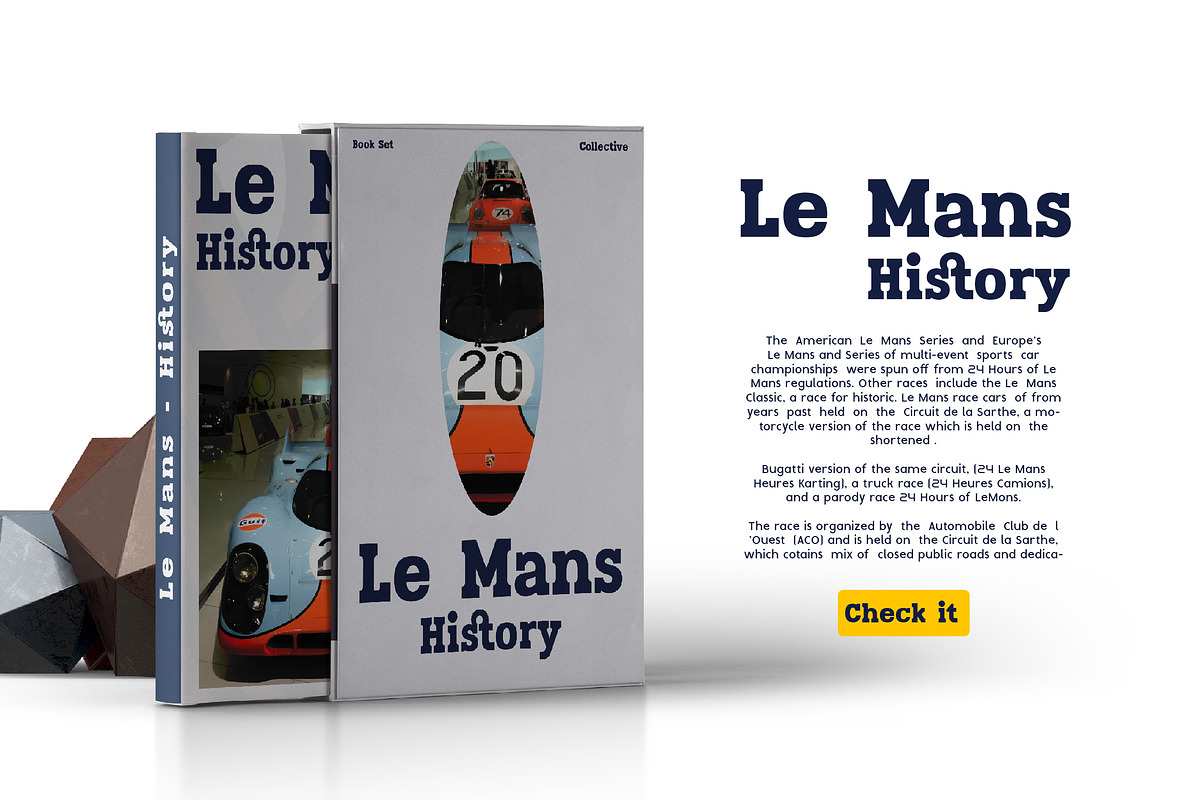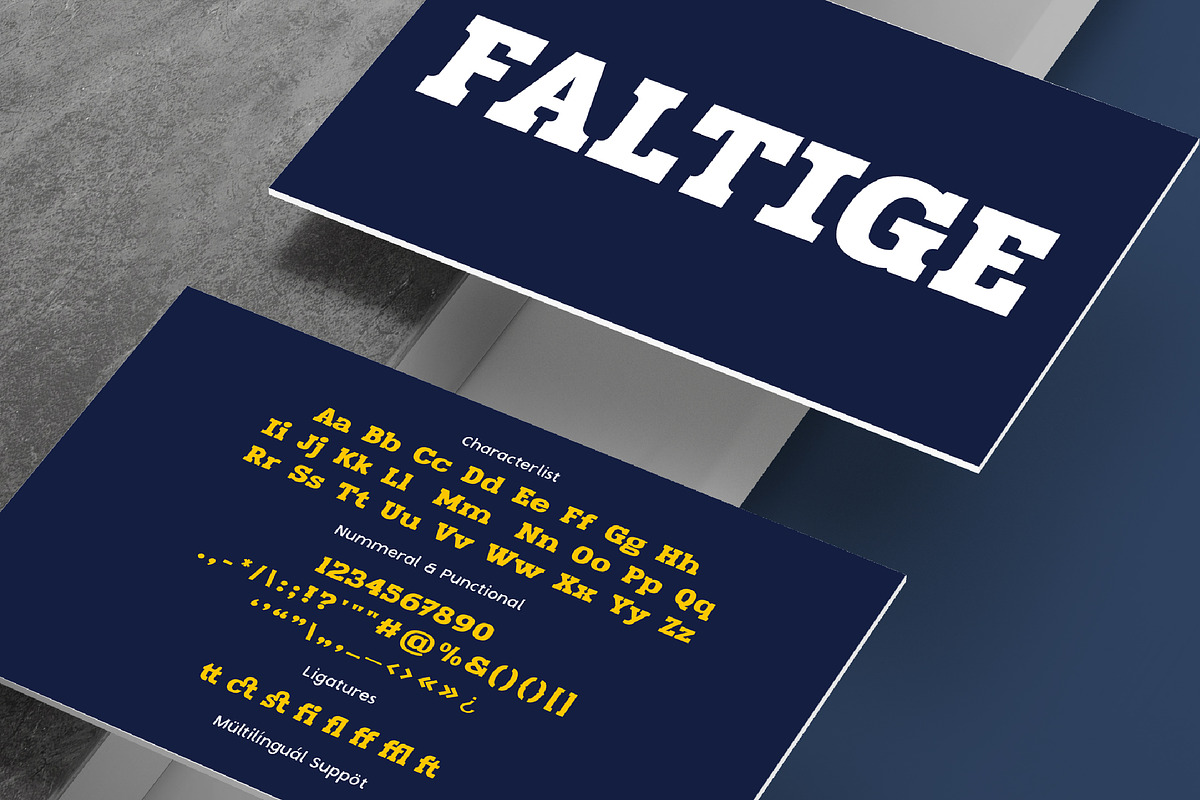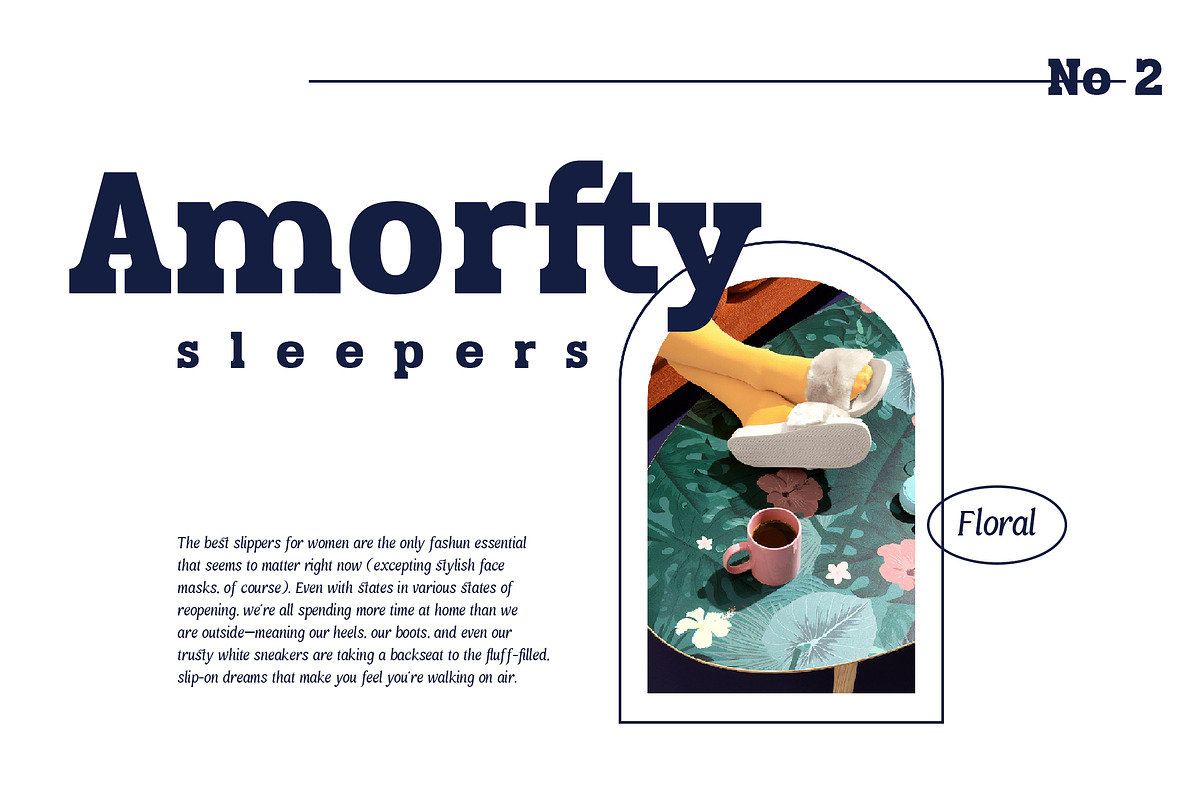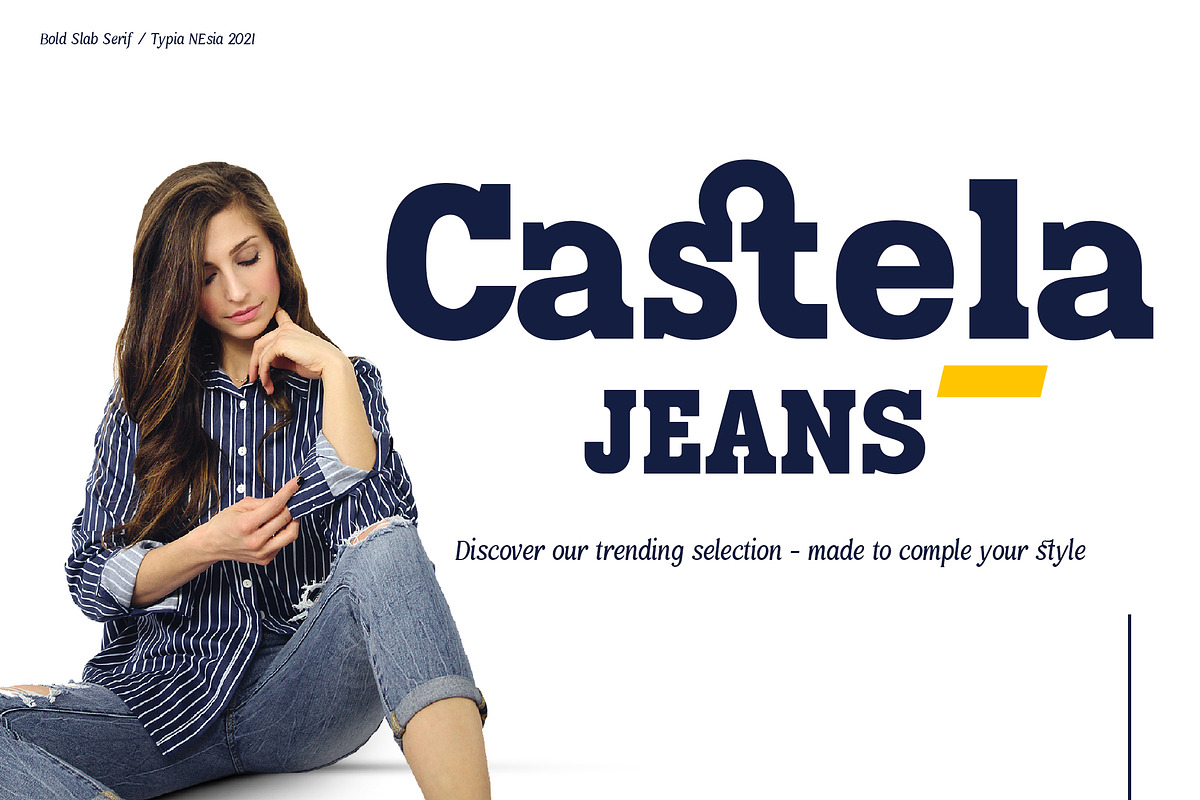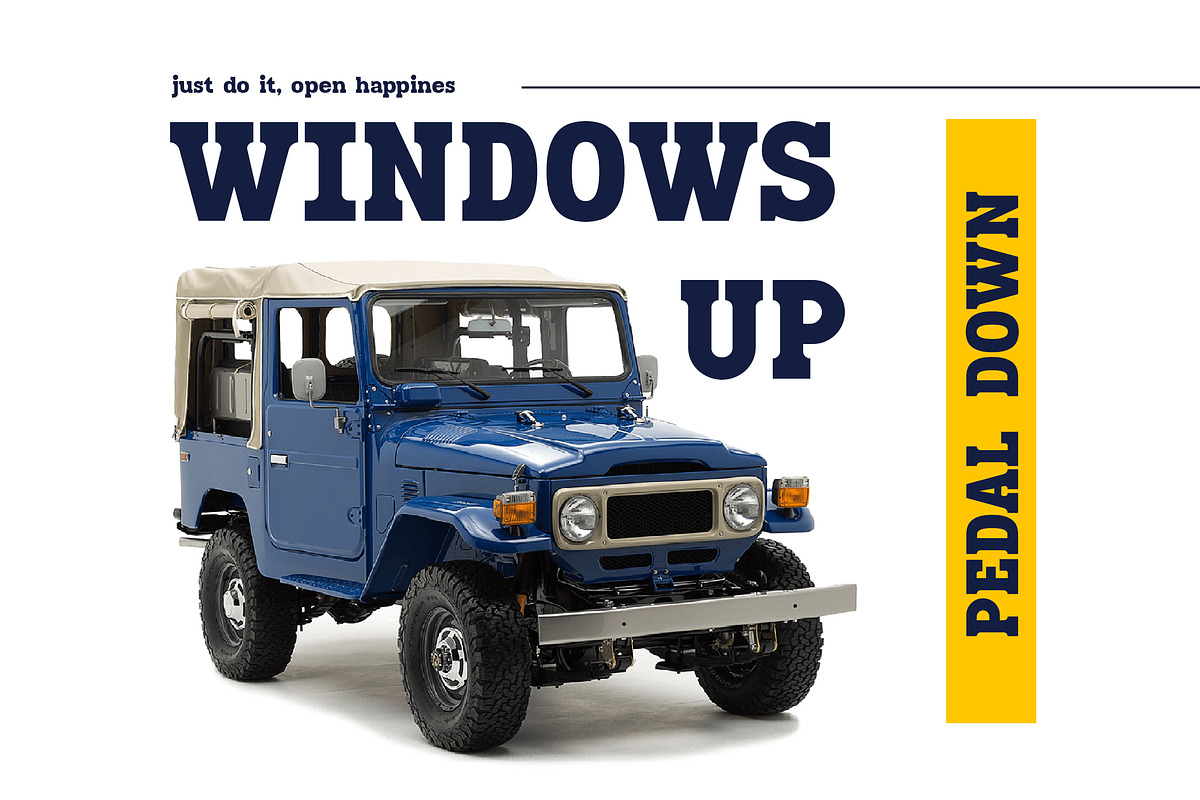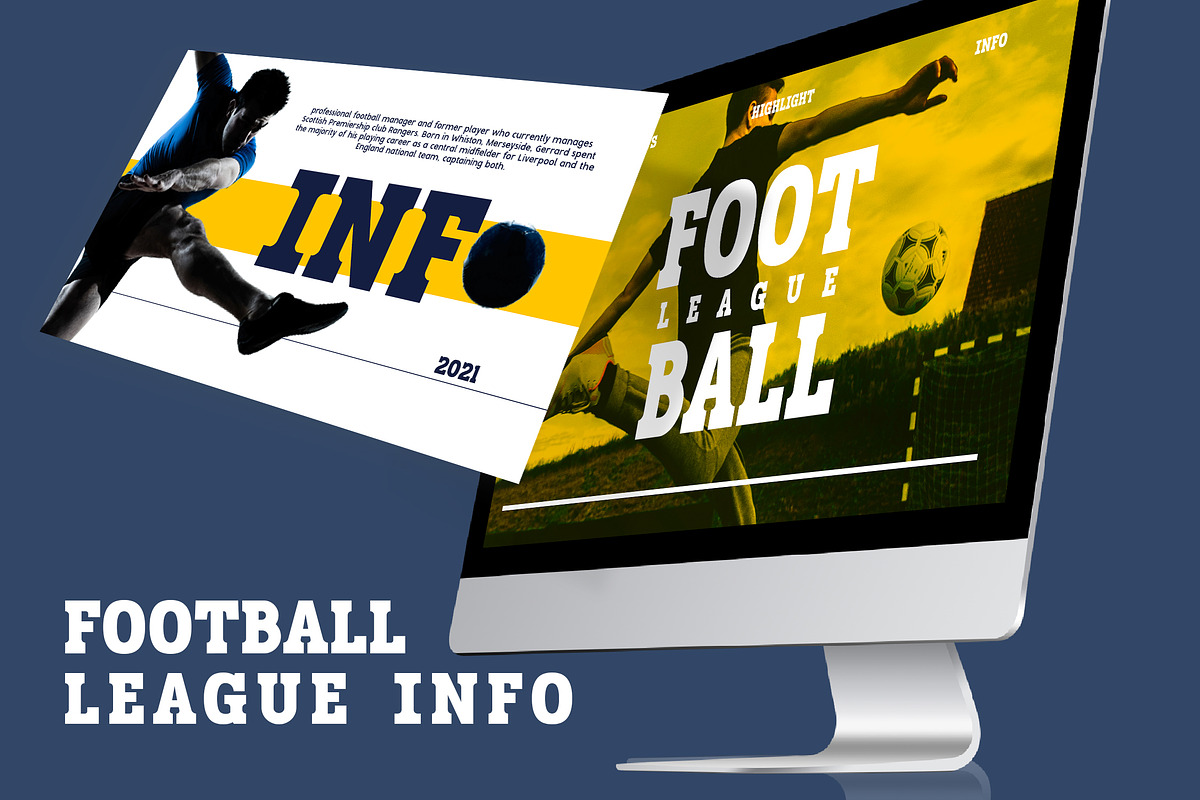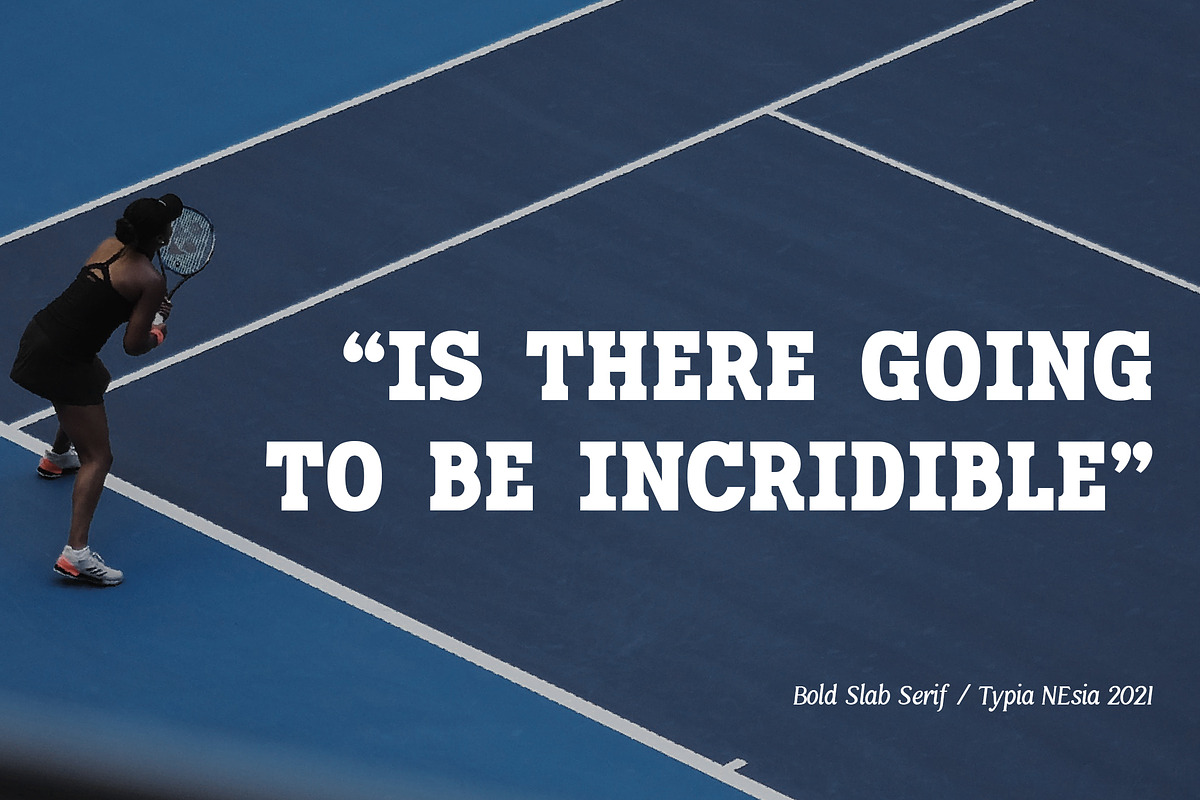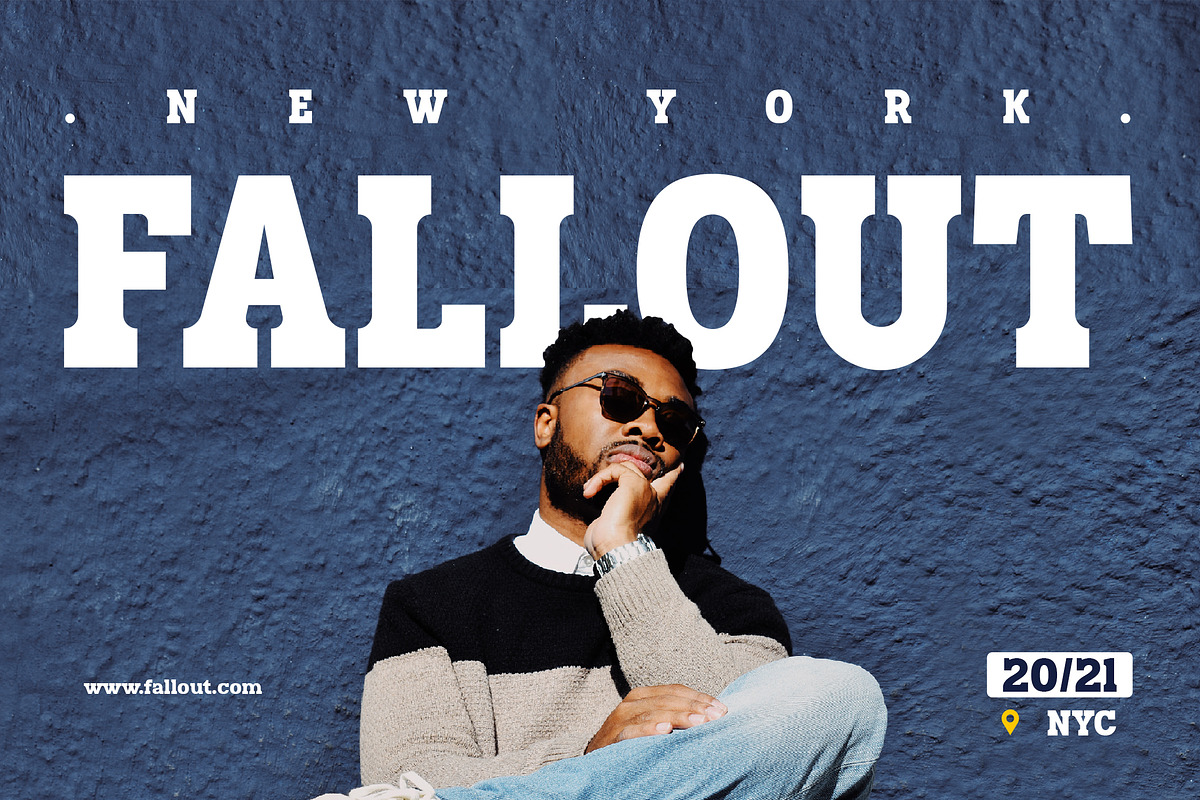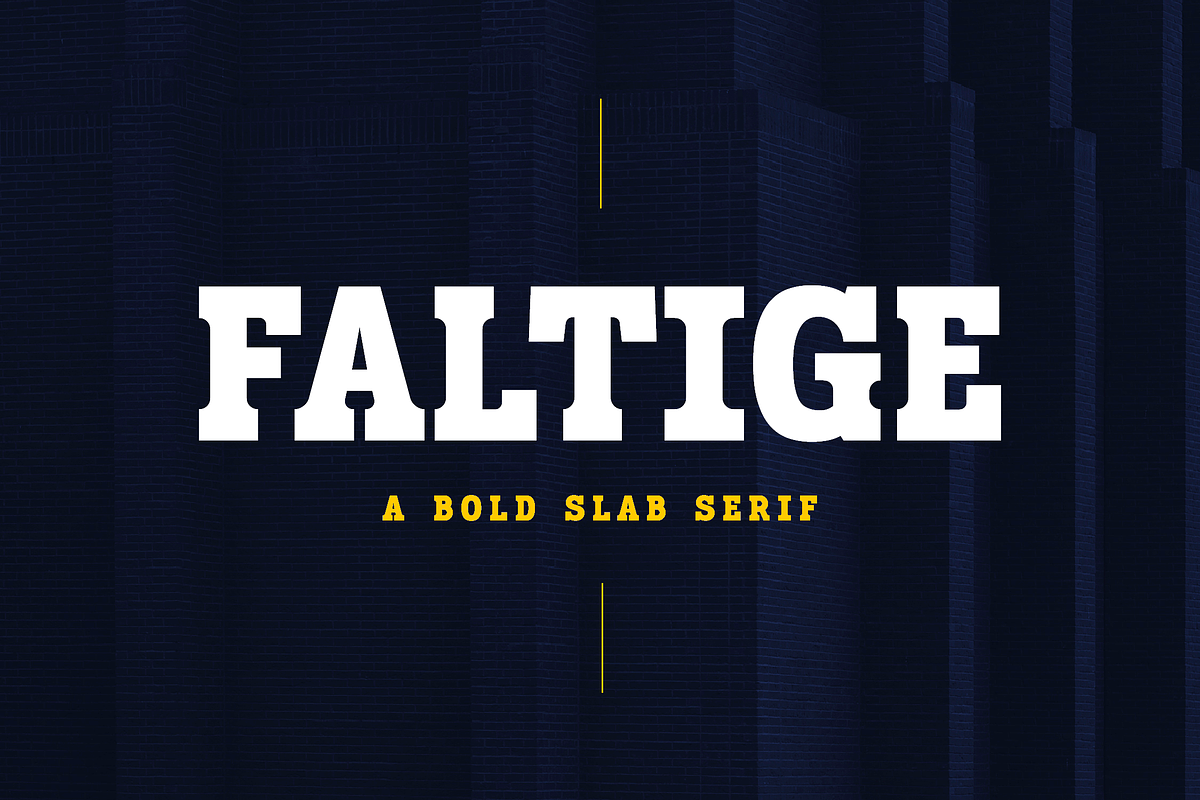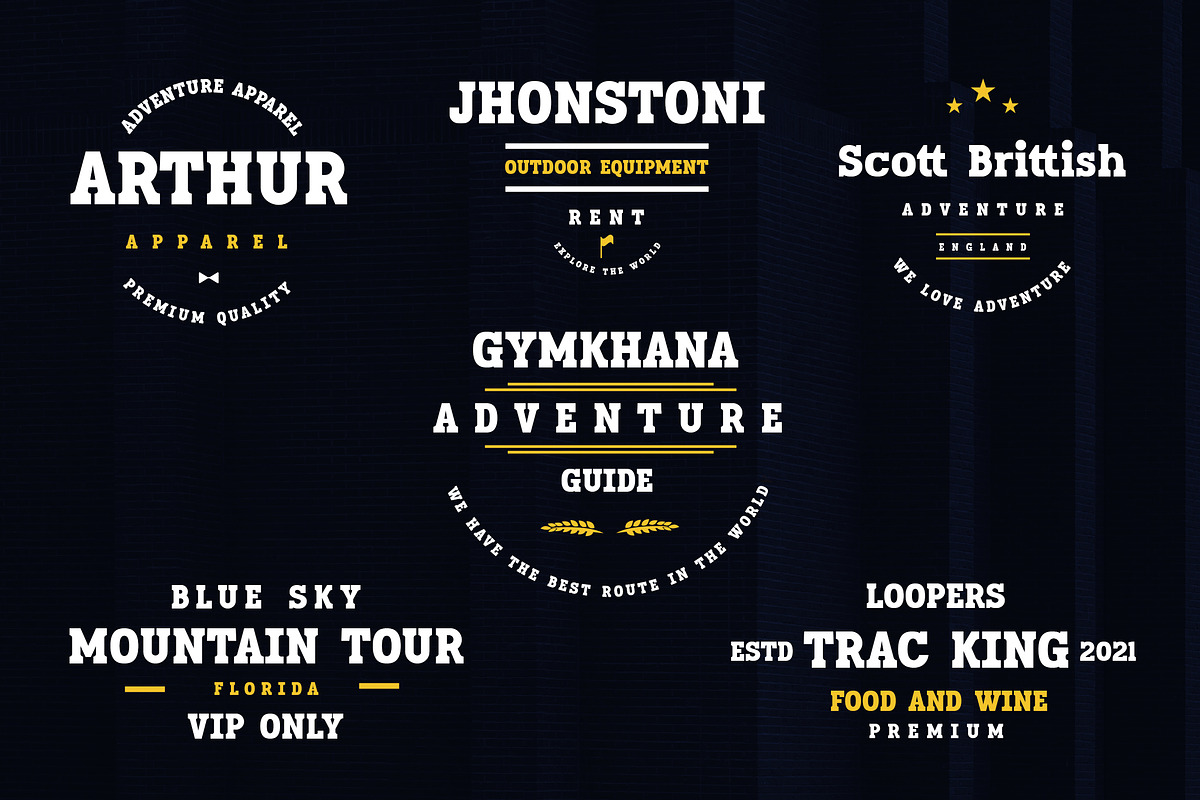
Faltige Slab Serif
Faltige - Adventure and Sport Display Slab Serif Font
Faltige Slab Serif font is perfect for your up coming projects. Such as logo branding, editorial design, fashion, adventure apparel, stationery design, sport design, blog design, modern advertising design, card invitation, badge, art quote, home decor, book/cover title, special events and any more.